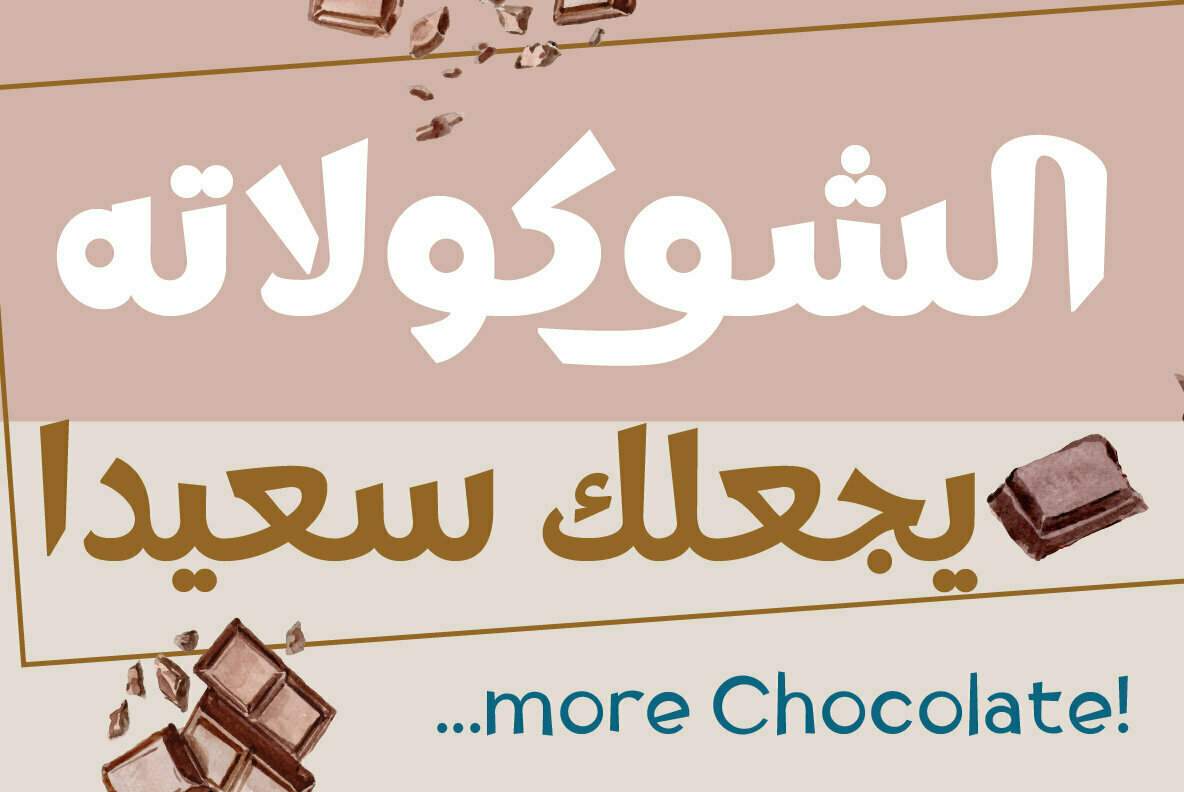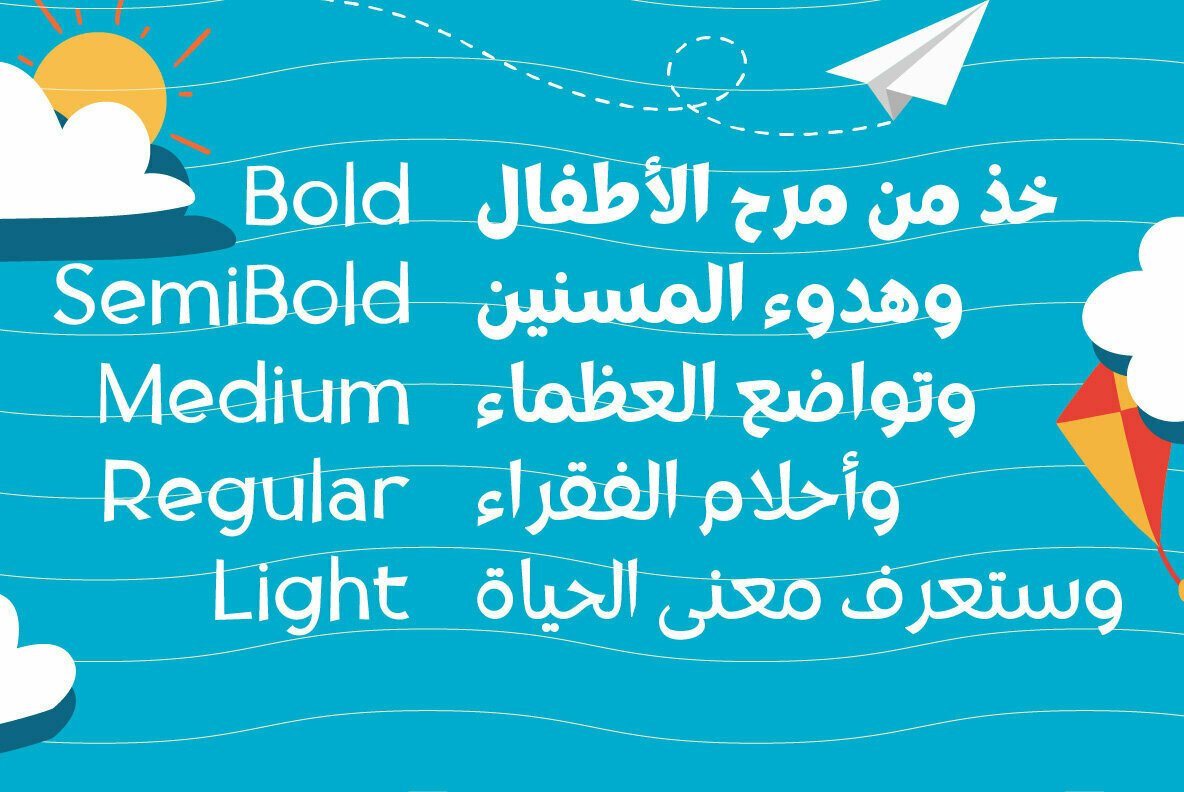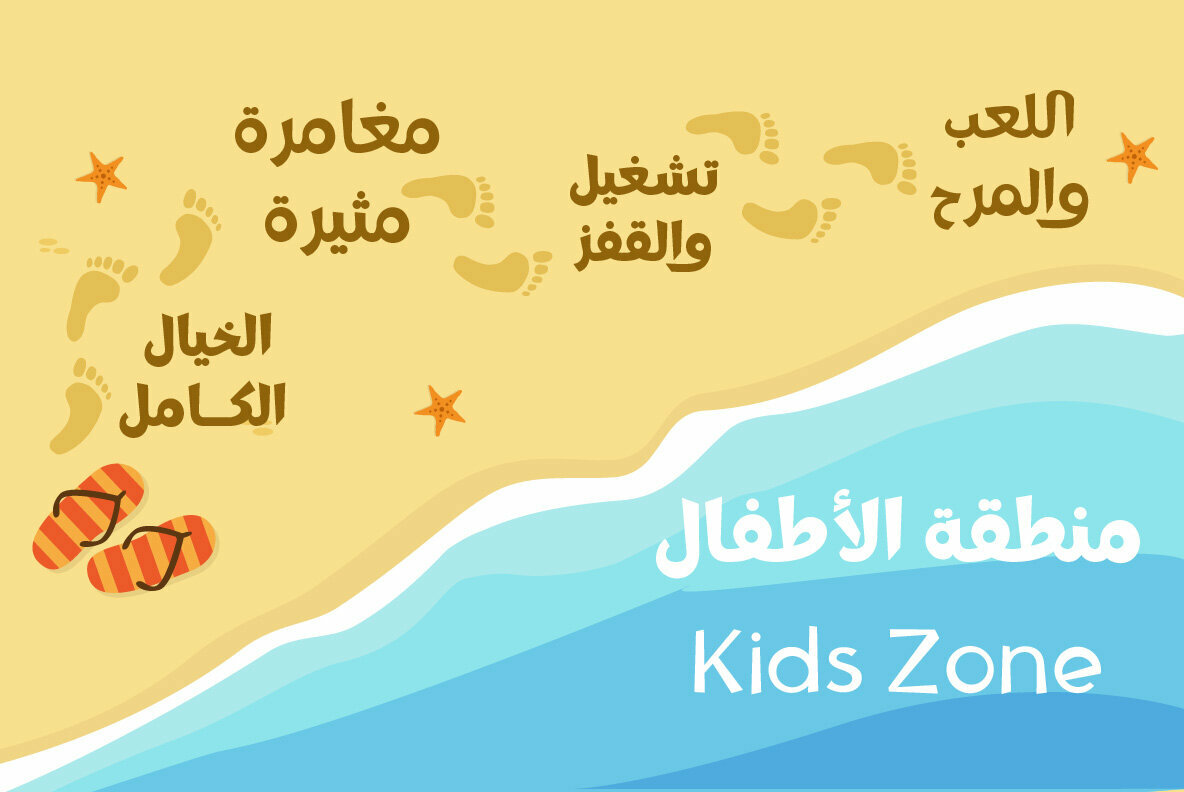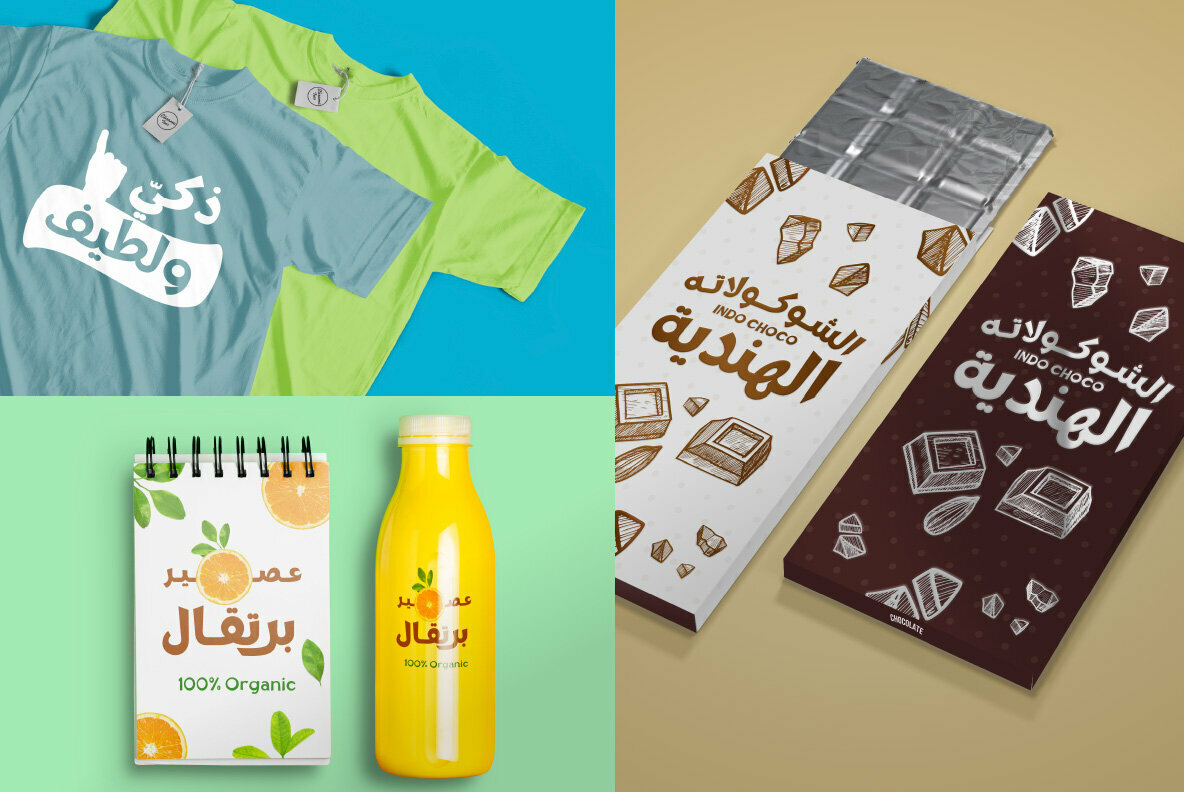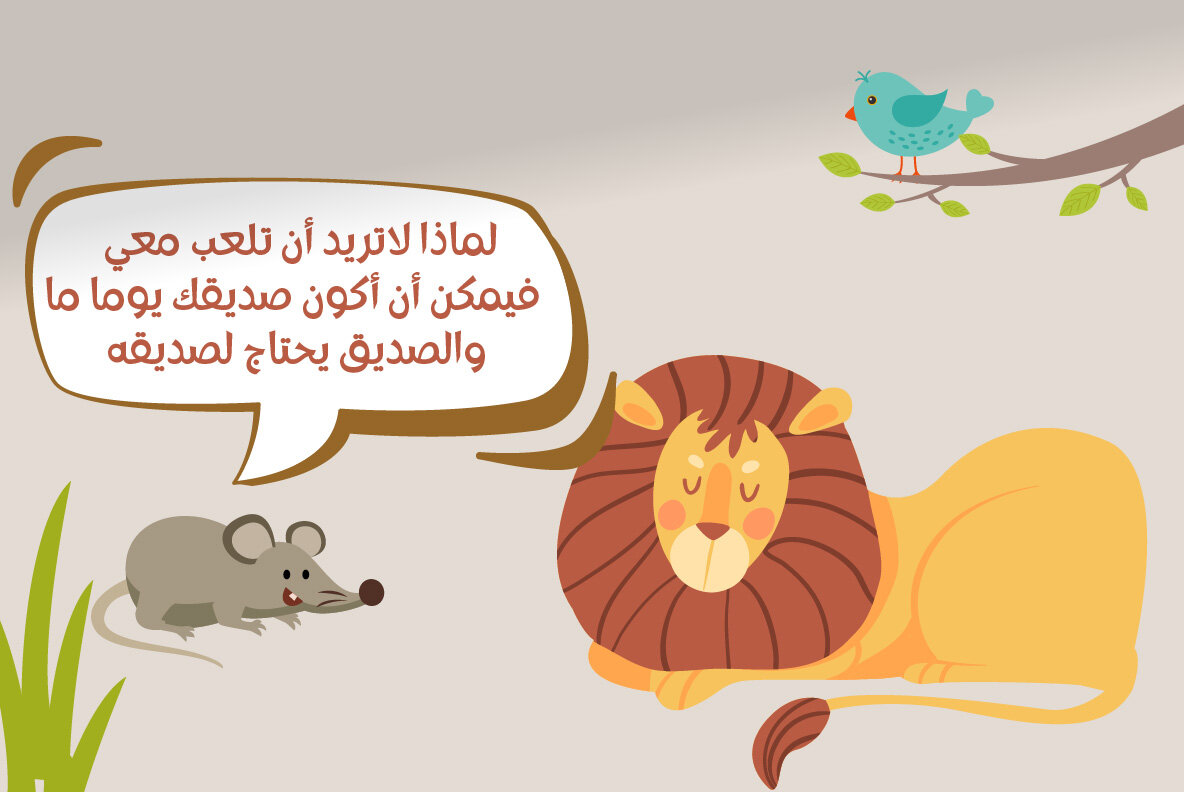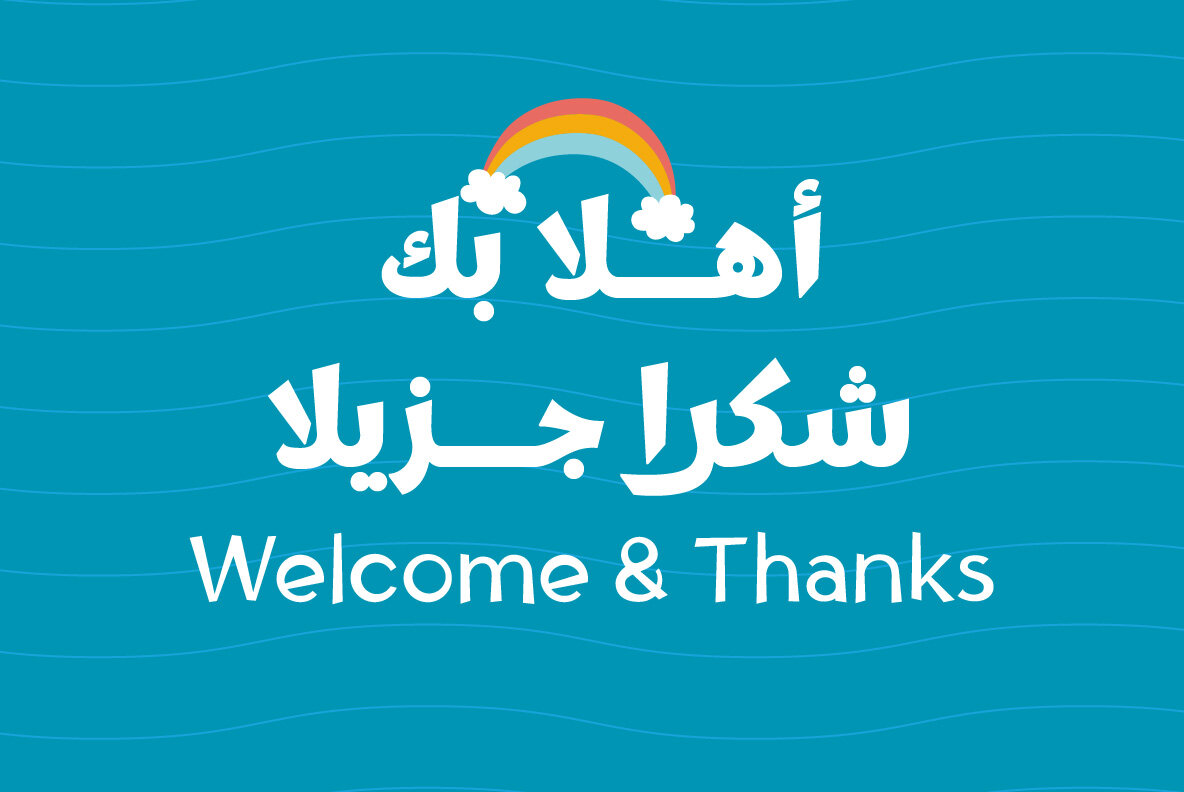
Tufuli Arabic Font
Tufuli means “childish” in Arabic. In this font, I wanted to represent the characters as funny and flexible, just like childish characters can be. Tufuli has sloping terminal geometric shapes, giving it a playful feeling. Tufuli Arabic extended with the addition of Arabic glyphs, for Arabic, Urdu, and Farsi.